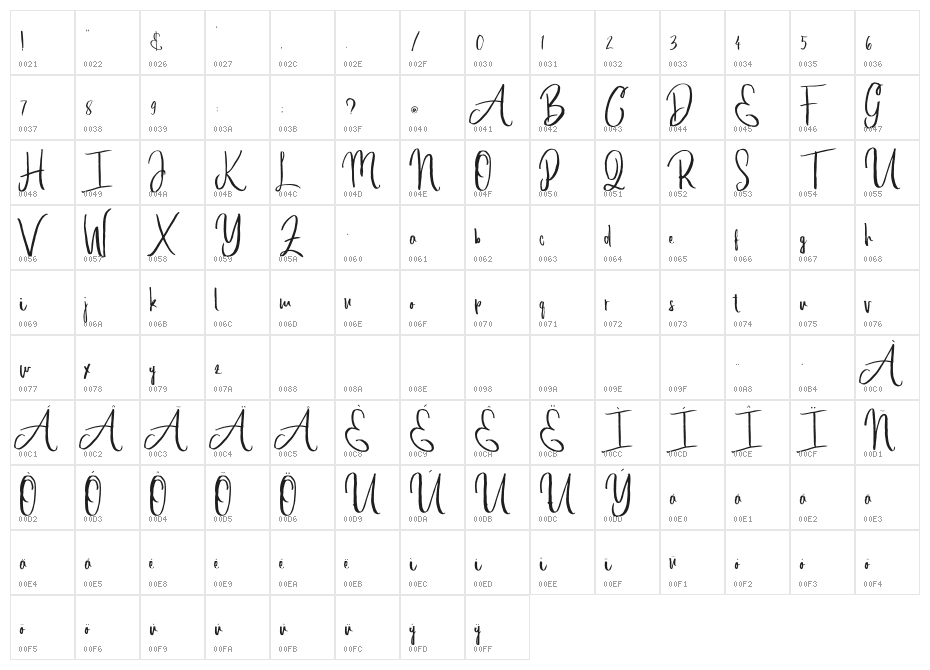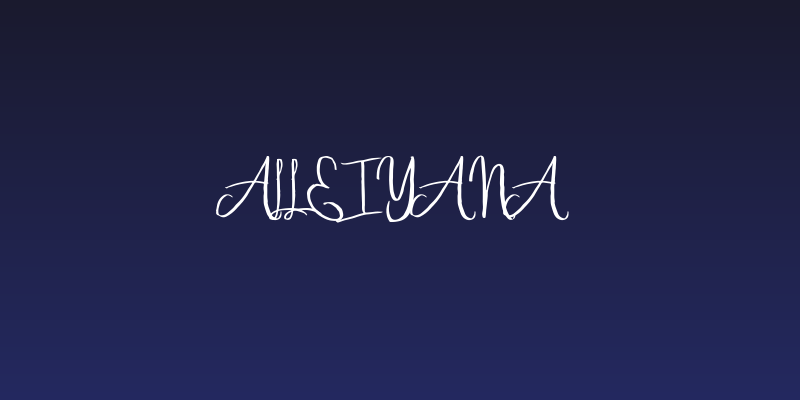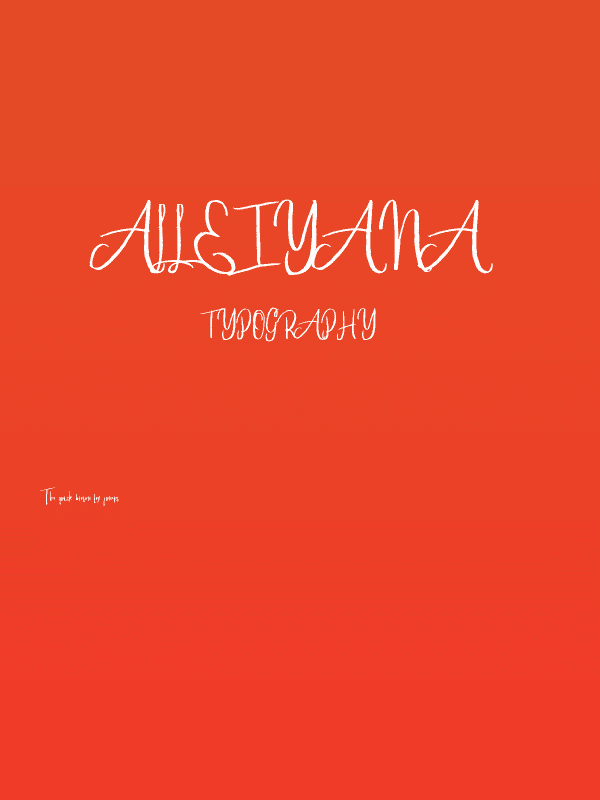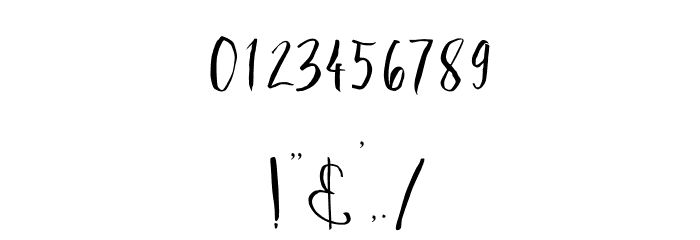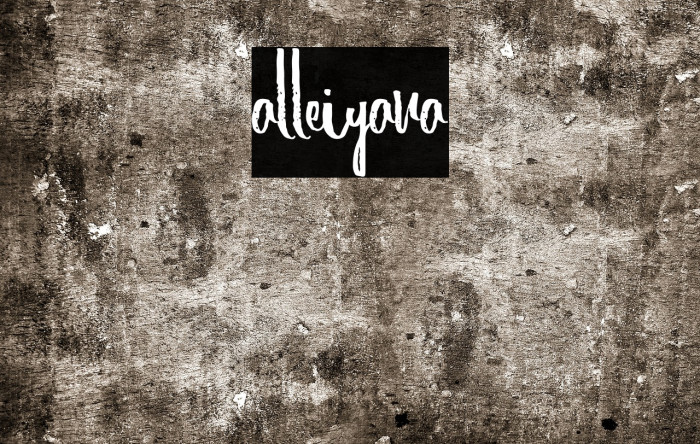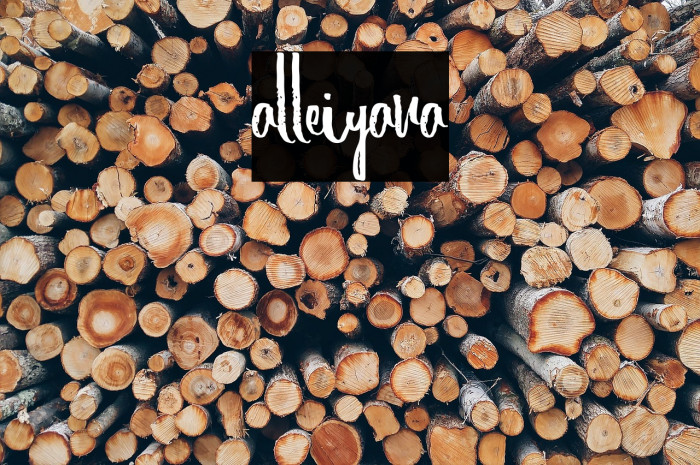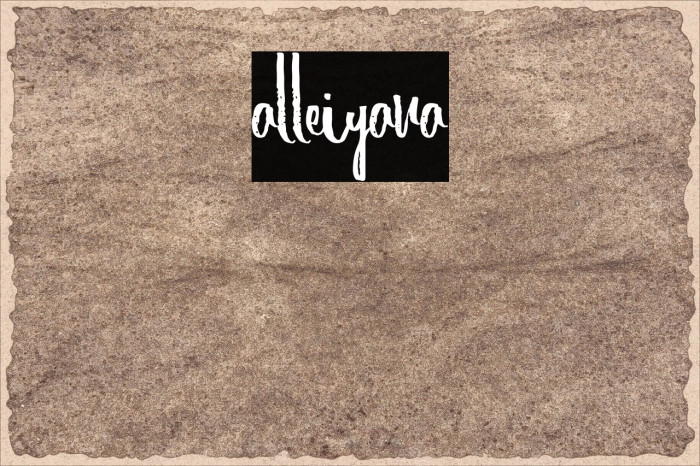
alleiyana Font
This font exudes a lively and expressive character, with its flowing, handwritten style that captures a sense of spontaneity and creativity. The uppercase letters are bold and dynamic, featuring a mix of thick and thin strokes that add a sense of movement and energy. The lowercase letters maintain this fluidity, with a slightly more compact form that complements the uppercase. Numbers and special characters are crafted with the same artistic flair, ensuring a cohesive look across all elements. The overall design is both playful and sophisticated, making it suitable for a variety of creative applications.